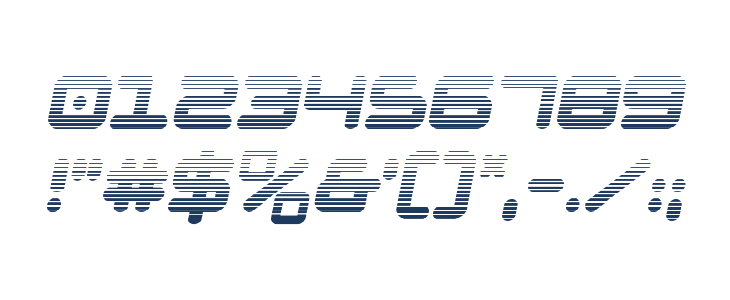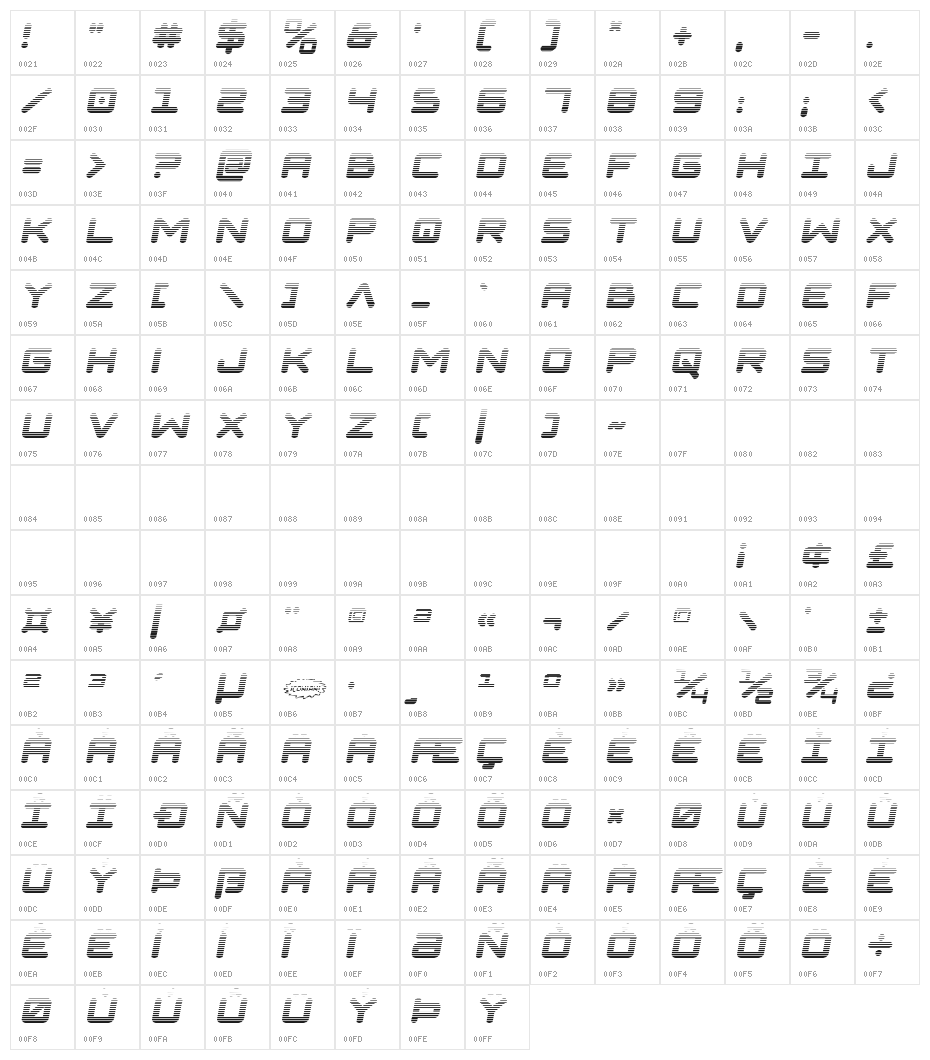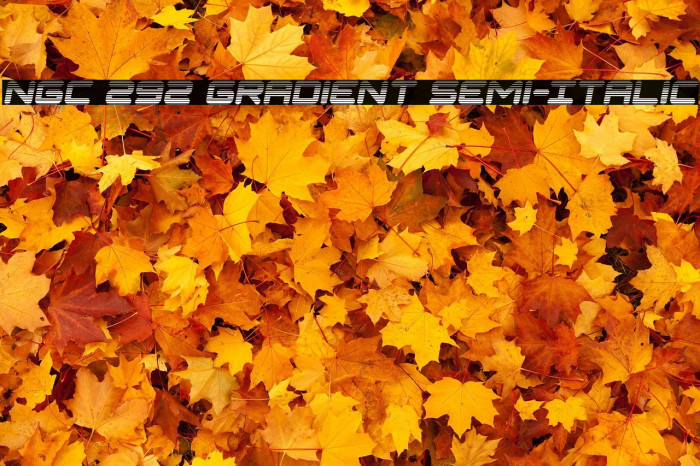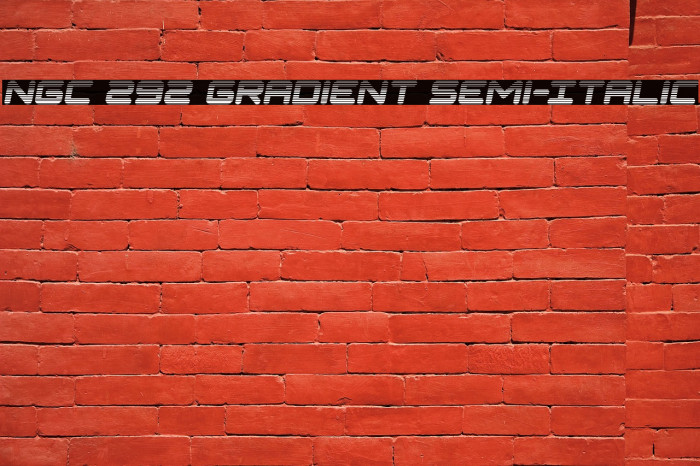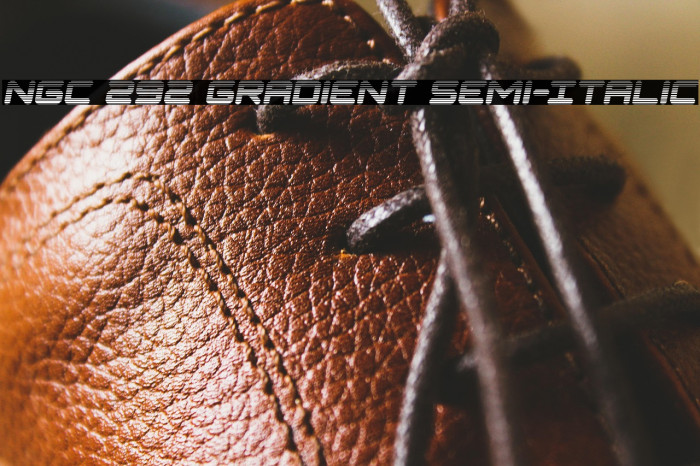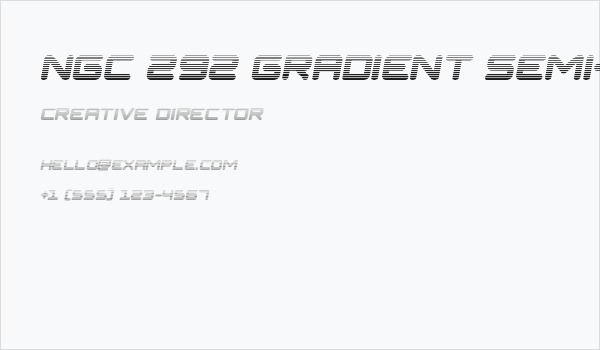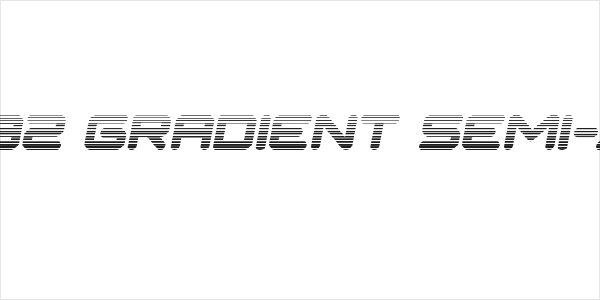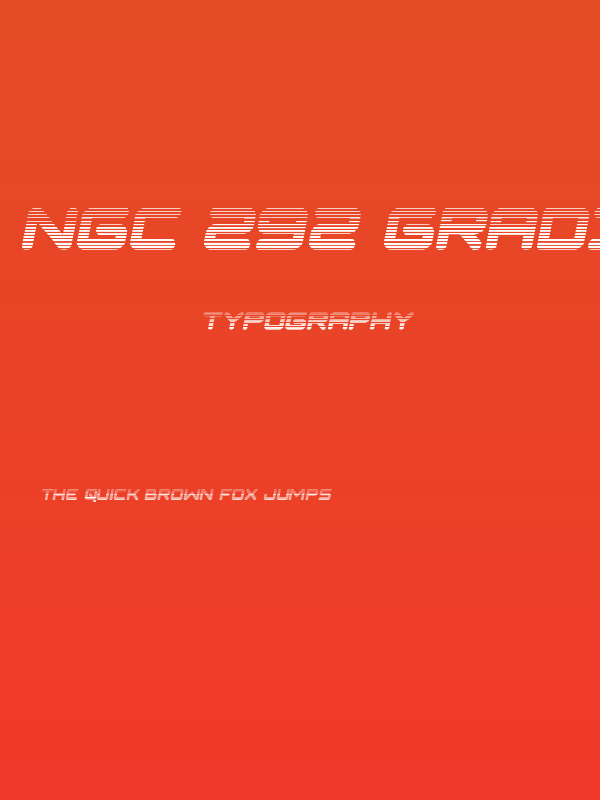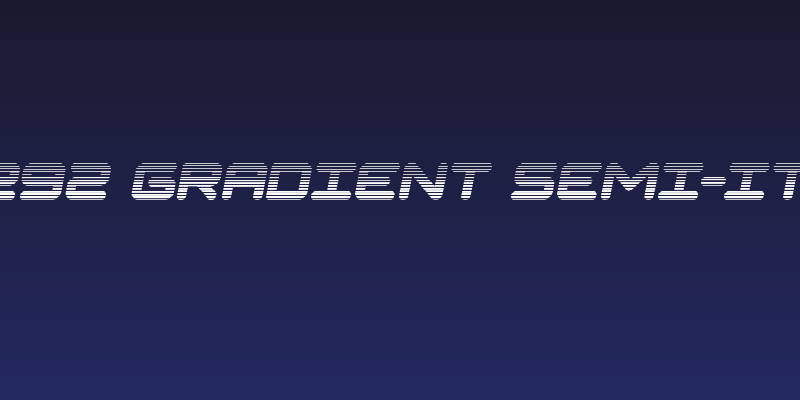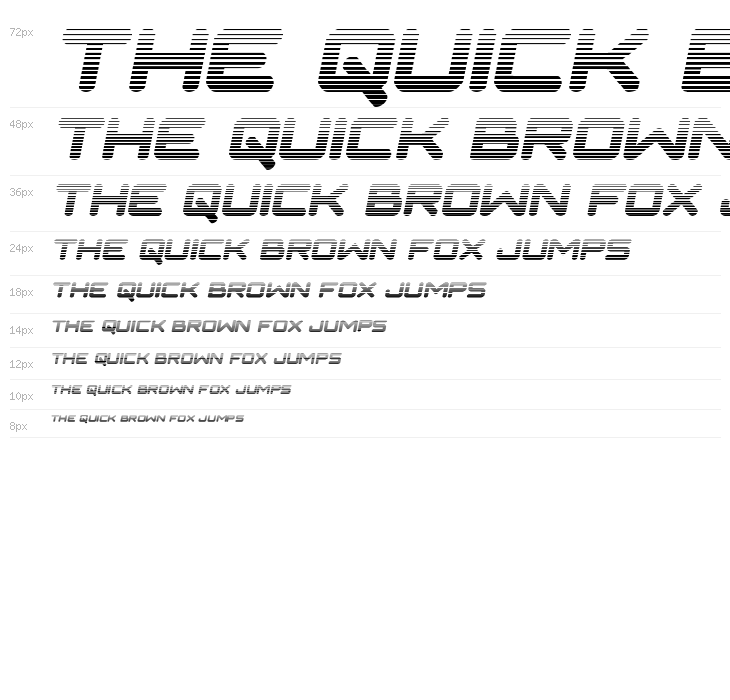
NGC 292 Gradient Semi-Italic Font
NGC 292 Gradient Semi-Italic Description
This font features a modern, futuristic design with a unique gradient effect that creates a sense of motion and depth. The semi-italic slant adds a dynamic touch, making it stand out in any design. Each character is composed of multiple horizontal lines, giving it a striped appearance that is both eye-catching and stylish. The font maintains a consistent width and spacing, ensuring readability while delivering a bold visual impact. Its geometric structure and clean lines make it suitable for contemporary projects that require a touch of innovation and creativity.
| Proposed Projects | Ideal for tech-related branding, futuristic posters, digital media, and innovative product packaging. |